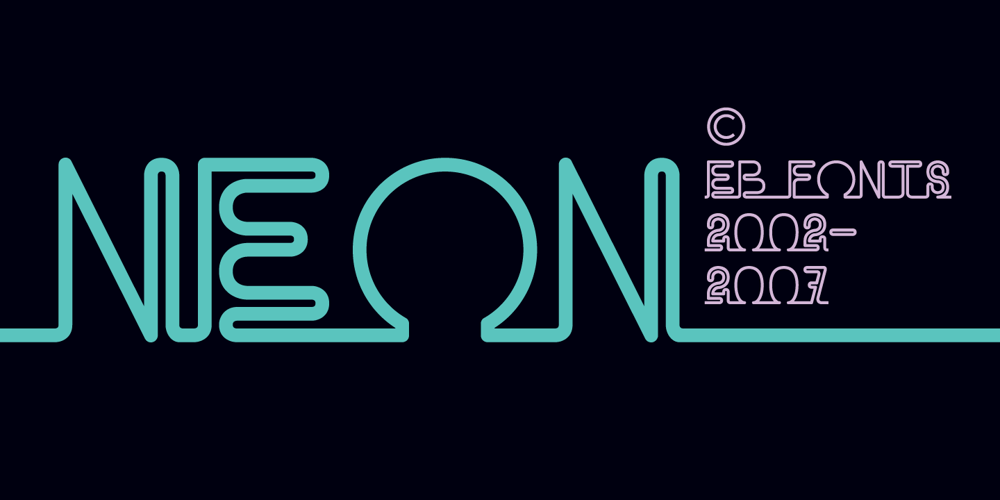
EB Neon Font Family was designed by Erik Jarl Bertell and published by Erik Bertell. EB Neon contains 1 styles and family package options. Neon is a connected monoline script font with iconic qualities suitable to headlines, mastheads and logotypes.